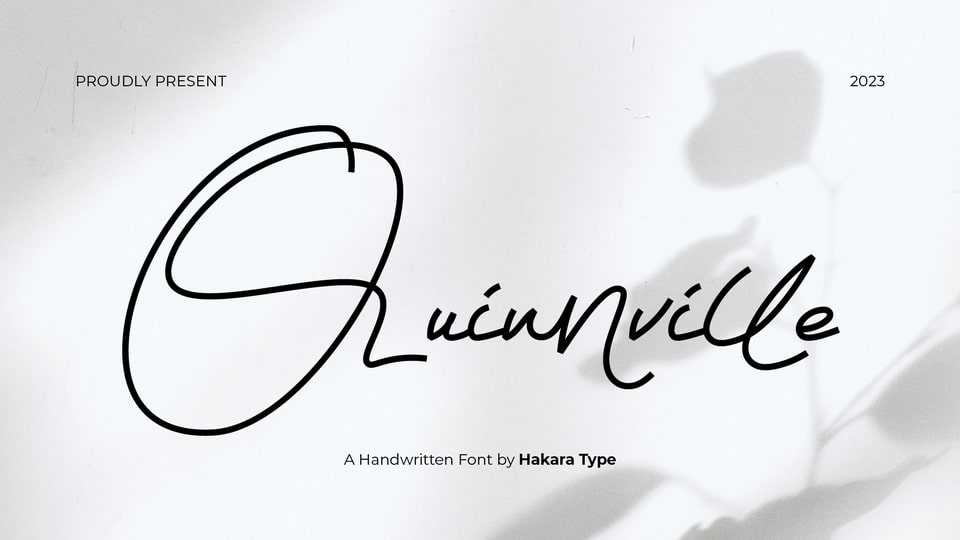
Download Quinnville font, a modern handwritten typeface inspired by natural handwriting. Quinnville is perfect for branding projects, logo, wedding designs, social media posts, advertisements and so on.
Designer: Hakara Type